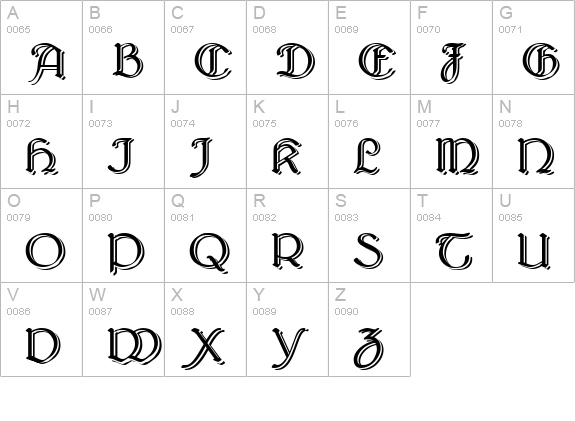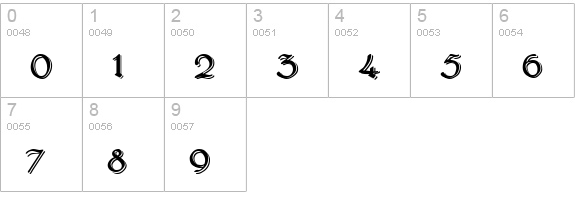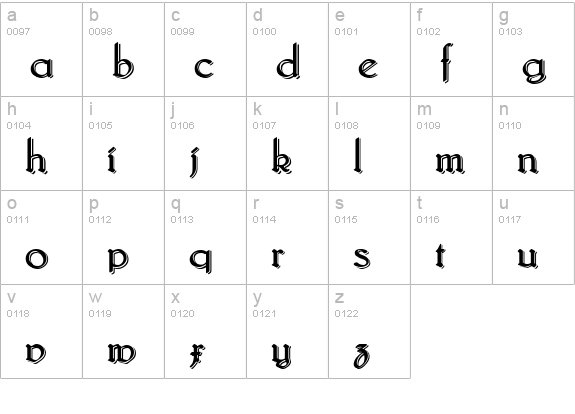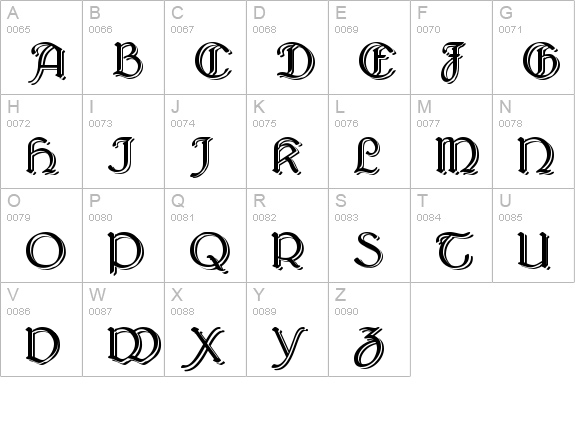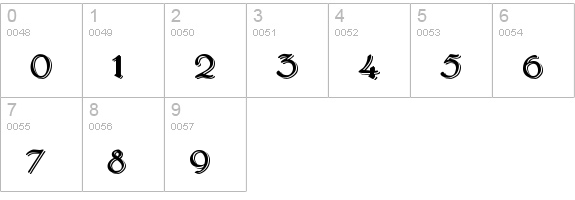
Bridgnorth Blocked Font Details
Introducing Bridgnorth Blocked font, a striking and bold display typeface designed to make your text stand out with a touch of vintage charm. This unique font features strong, angular lines and a solid, blocky design that exudes confidence and impact. Bridgnorth Blocked is perfect for creating eye-catching headlines, posters, logos, and more. Best of all, Bridgnorth Blocked font is completely free to download at FontsMarket.com! This means you can easily add this stylish typeface to your collection without any cost. Whether you're a designer looking to add a fresh look to your projects or a creative individual wanting to make a statement with your text, Bridgnorth Blocked font has got you covered. Download it now and let your words make a bold statement!